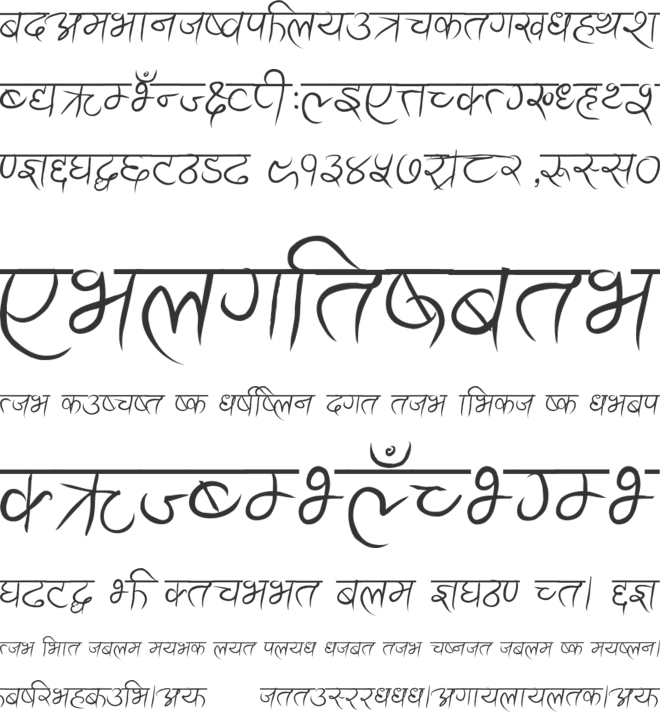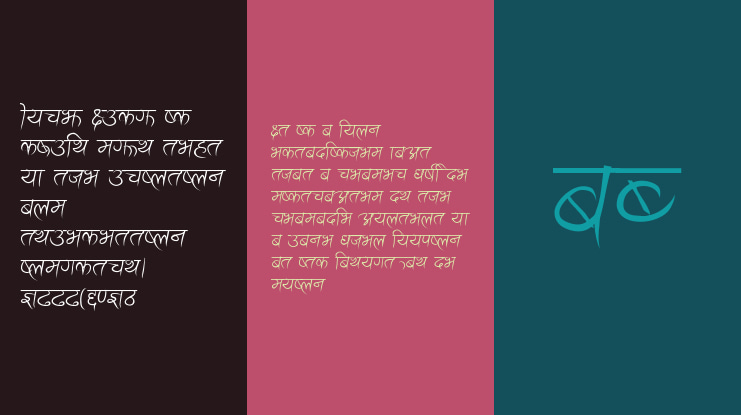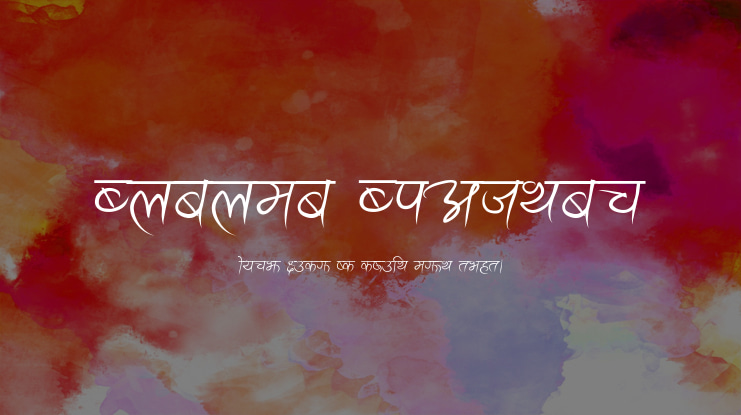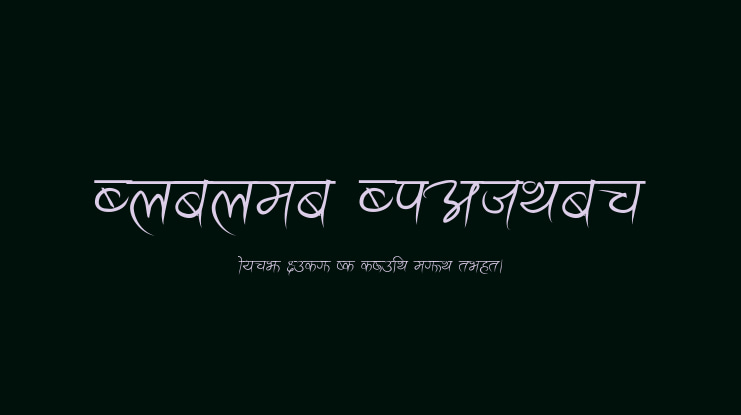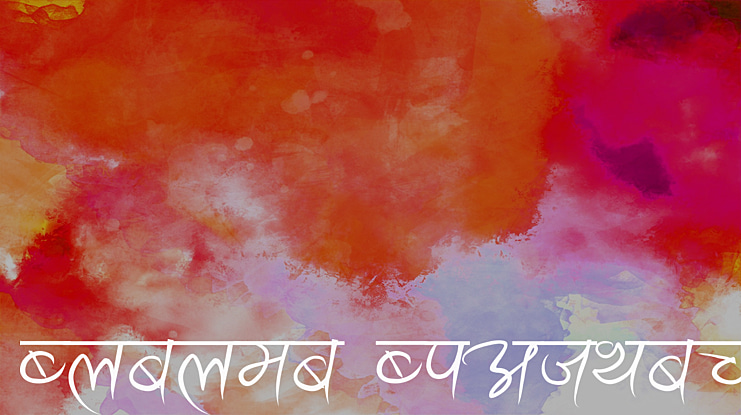
Ananda Akchyar Font Family
Ananda Akchyar is a Devanagari Nepali Handwriting / calligraphy font. (non-unicode version), based on traditional nepali keyboard.more previews on behance:www.behance.net/gallery/1964817/Devnagari-handwriting-Ananda-Akchyar-fre... (https://www.behance.net/gallery/1964817/Devnagari-handwriting-Ananda-Akchyar-free-font)